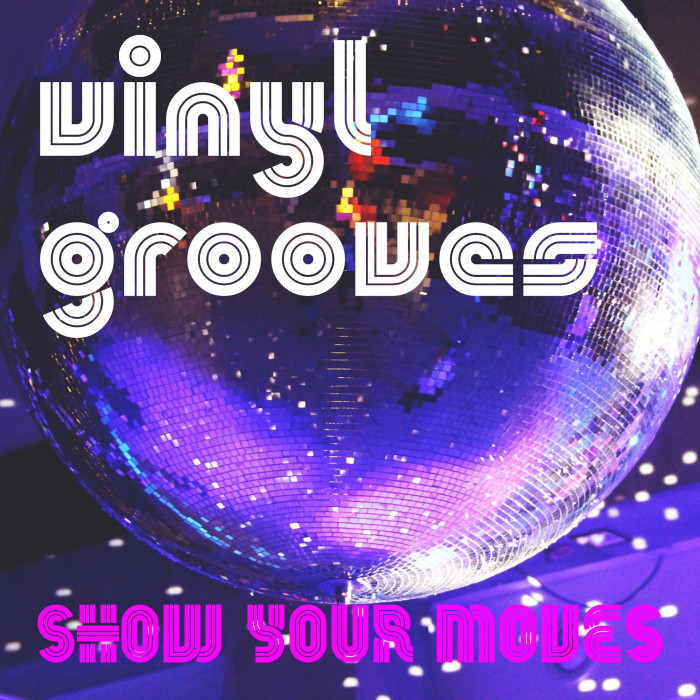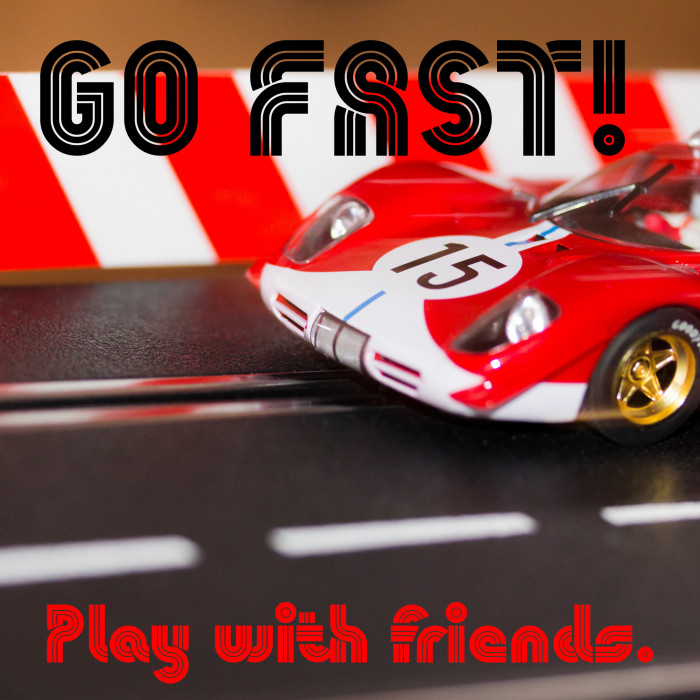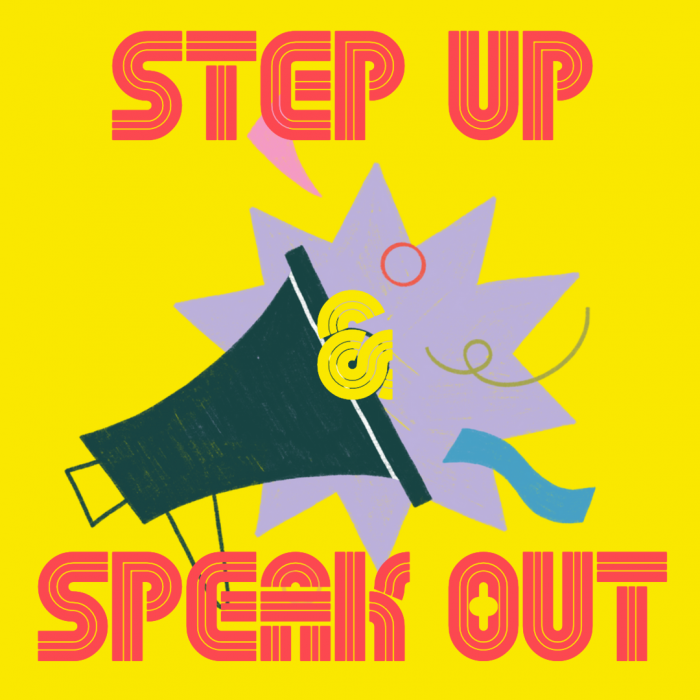
A little experiment with the "connect" bricks (and an healty dose of stacking). I wasn't referencing any specific example of the style (of which there are many), but I'm sure that, looking for solutions as I went, I ended up with something similar to already existing typefaces (and fontstructions).
Unfortunately, some connecting bricks don't align exactly, so I had to resort to approximate them, when possible, with more stacking, which didn't particularly help the already lacking consistency in construction.
Pretty cute retro style. Some glyphs are so cool, like g, y, @, & and more. 10/10
As is tradition for this style of typeface, I made some alternate letters, plus some other addition (ligatures and such).
Uh You Sould Have Put The Altenates In The Private Use Area
Actually no. Alternates should be an OpenType feature, but that’s not (yet) possible with Fontstruct, so I have simply added А, Р, С, Т, etc. You’re welcome to use them as alternates for A, P, C, T, etc., so that the resulting text still have a chance to remain legible if the font is switched, which would not be the case if they were in the PUA.